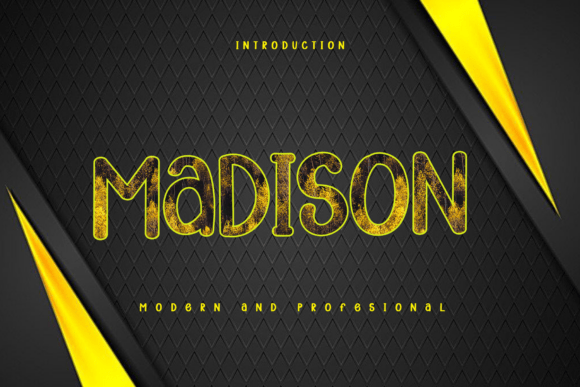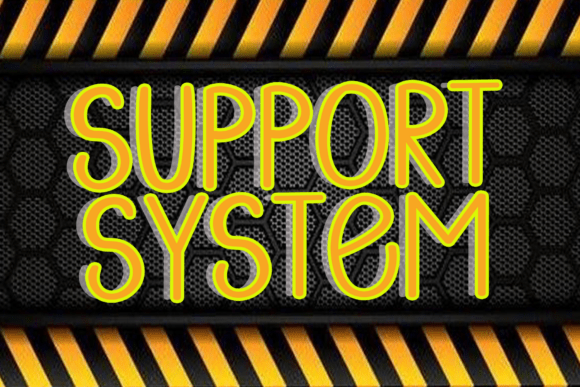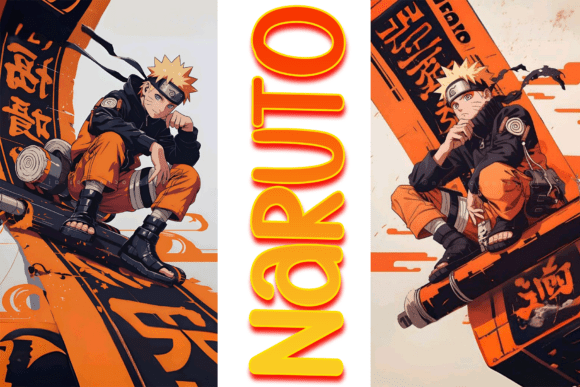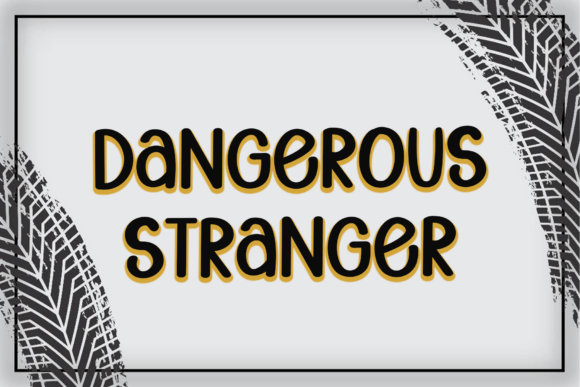
Madison Font: A Bold Display Font for Eye-Catching Design
About the Madison Font
Welcome to the world of Madison Font, a typeface that will inspire your next great project. Madison is a delicate handwritten font carefully crafted for a cool and unique design. This font can be used to write letters, invitations, food products, titles, and more.
Madison’s delicate hand-drawn quality makes it ideal for projects requiring a touch of elegance and personality, such as wedding invitations, branding for artisanal food products, or short, impactful headlines. Its slightly informal feel, however, makes it less suitable for large blocks of body text or user interfaces where readability is paramount.
For optimal visual balance, pair Madison with a clean sans-serif like Open Sans for body copy or a geometric sans-serif like Montserrat for a more modern feel. A classic serif like Garamond could also create a sophisticated contrast if a more traditional aesthetic is desired.
Madison projects a friendly, approachable, yet sophisticated personality. It works best for brands emphasizing craftsmanship, quality, and a slightly whimsical approach. Avoid using it for projects requiring a strong, bold, or overtly serious tone.
Madison Font Usage Examples
Madison Font Example